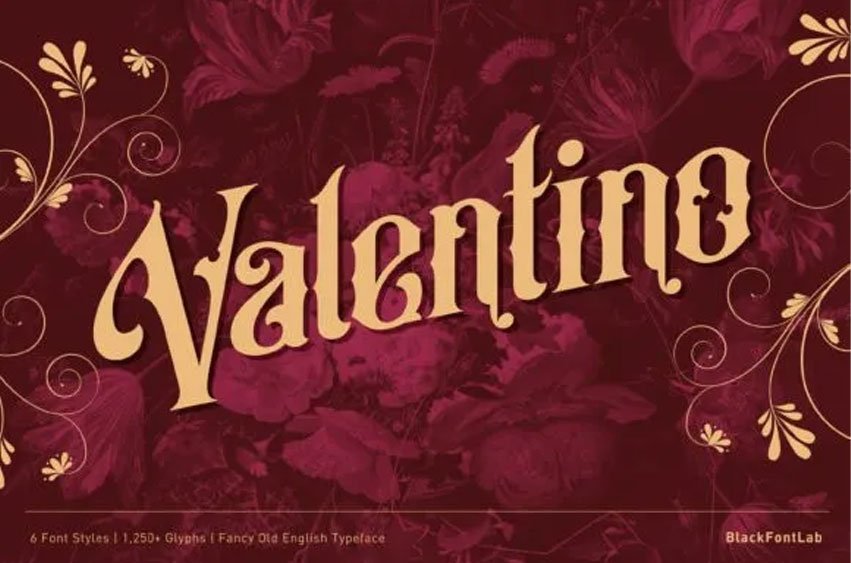
Valentino Font
Valentino Font is a bold and dramatic looking blackletter font.
No matter the topic, this font will be an incredibly asset to your fonts’ library, as it has the potential to elevate any creation.